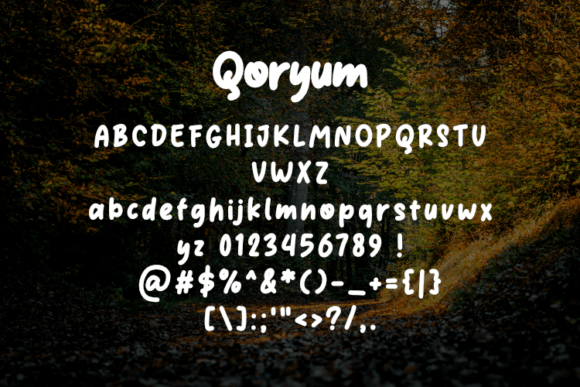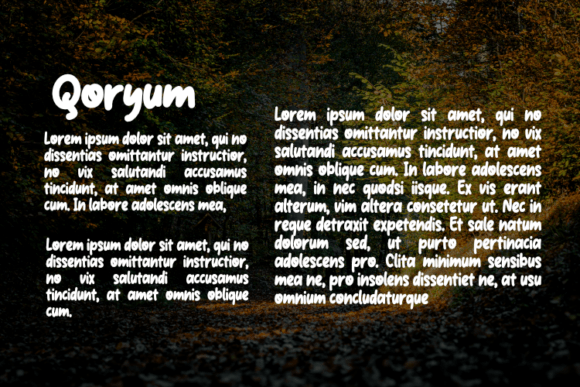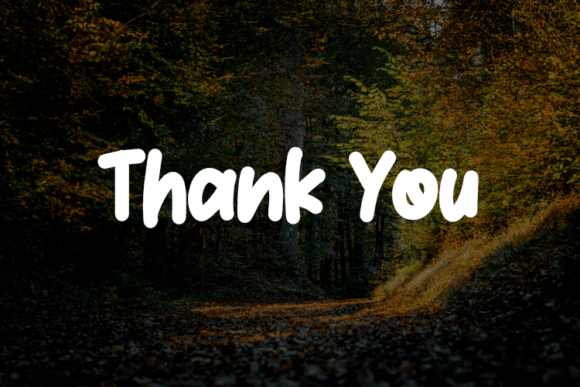
Introduction to Qoryum Font
Welcome to Qoryum, a contemporary masterstroke of typography.
Stylish and refined, it merges visual harmony with unparalleled readability, ensuring optimal display across numerous platforms Boasting OpenType Font (.
Key Features of Qoryum Font
Why Choose Qoryum Font?
Qoryum Font offers exceptional quality and versatility, making it a valuable addition to your design toolkit. Whether you’re creating for personal projects or commercial use, Qoryum Font delivers professional results.